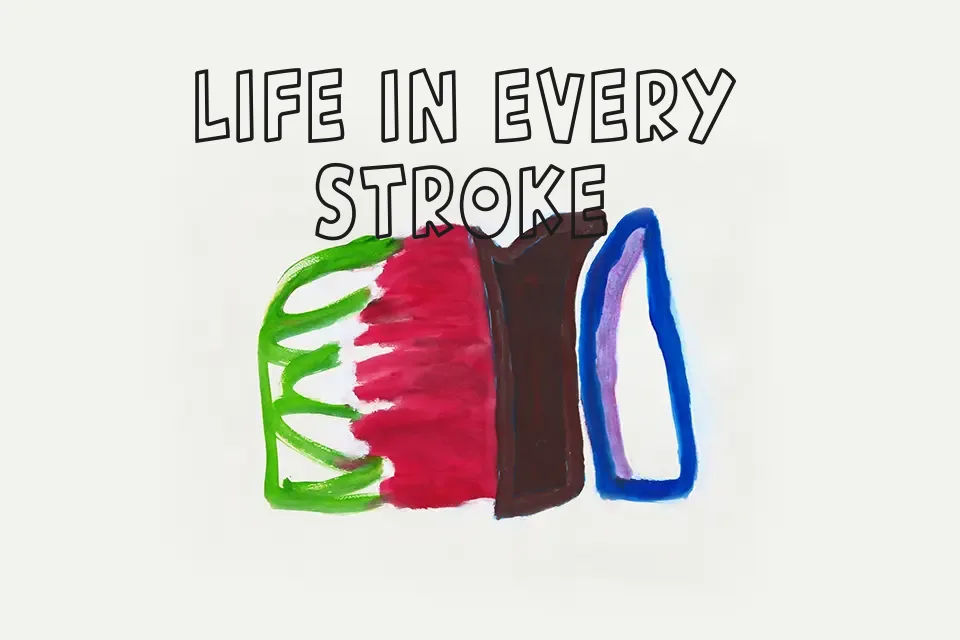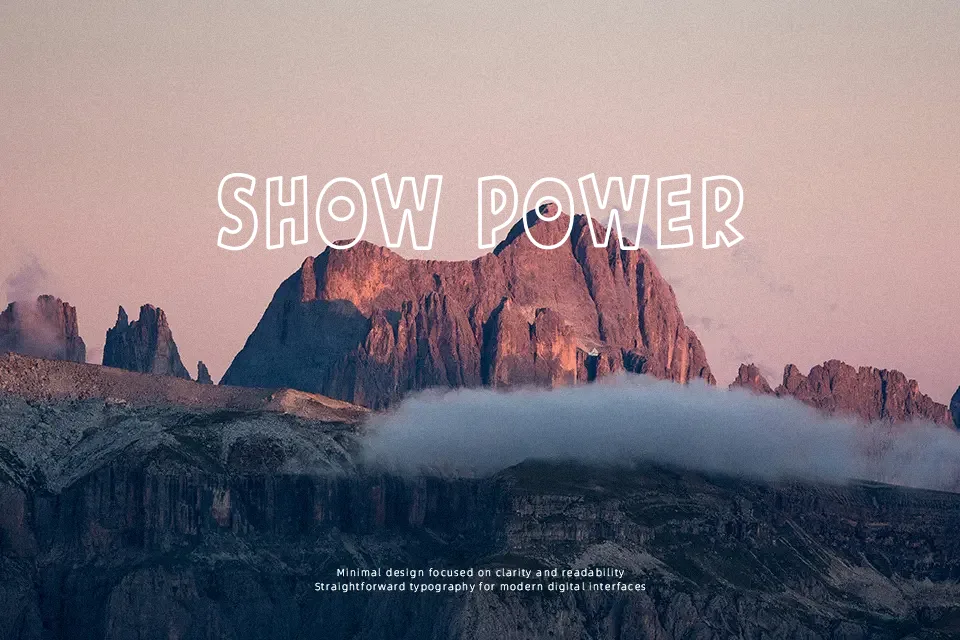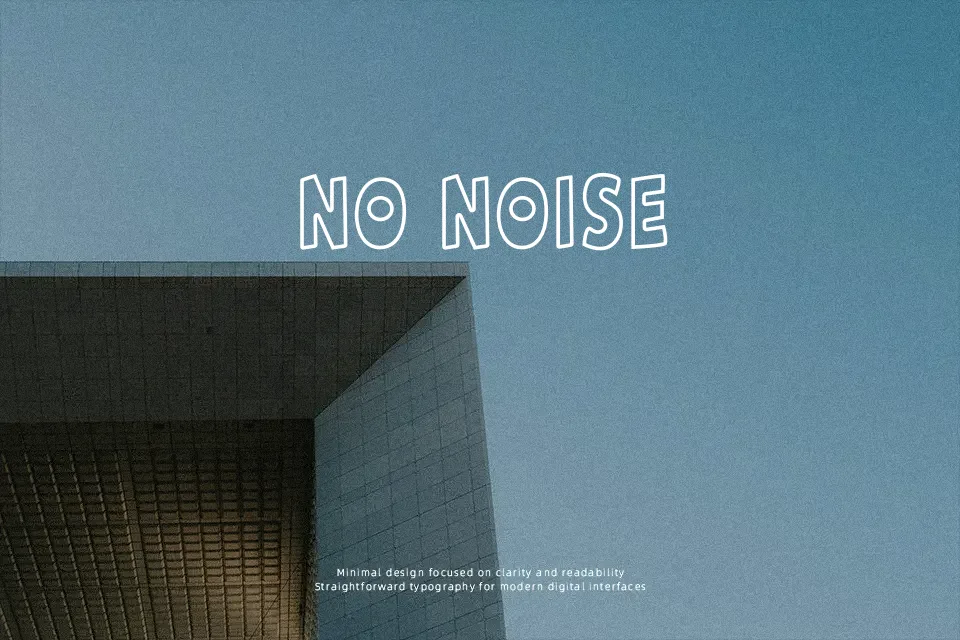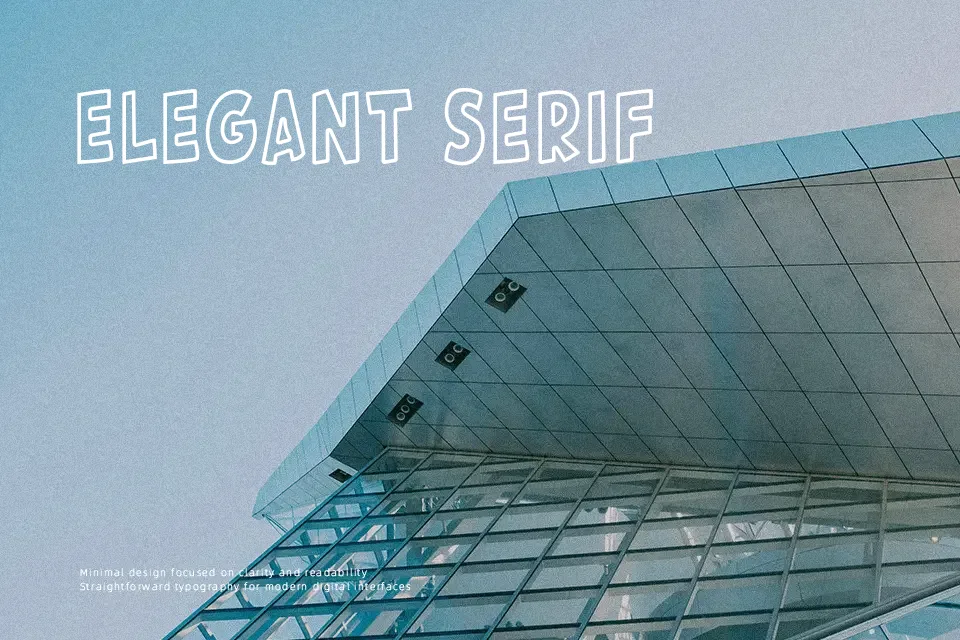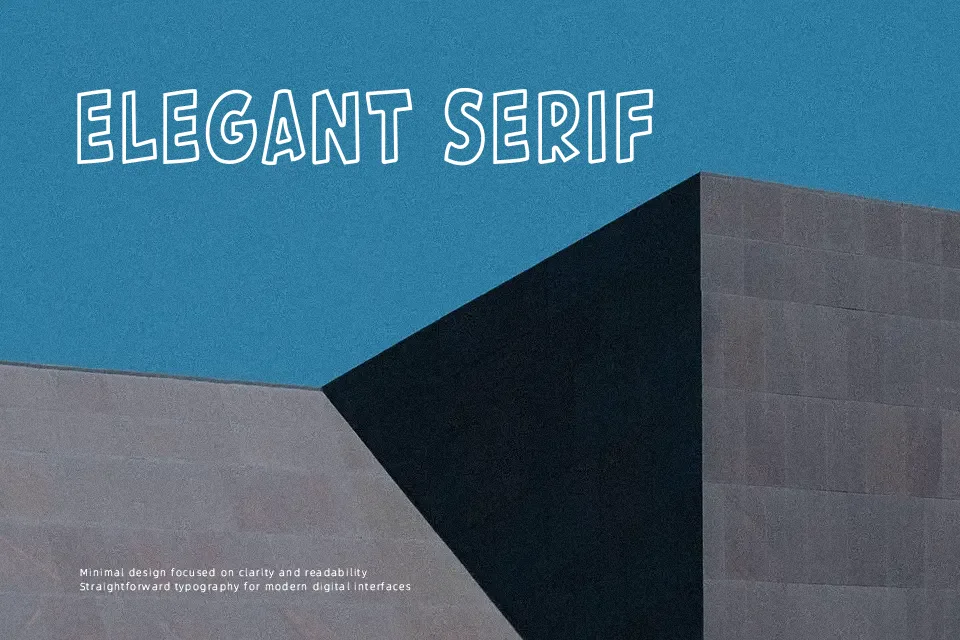
Breast Cancer Font
Breast Cancer is an outlined cartoon-style display face with bouncy, uneven contours, generous counters, and relaxed spacing that reads as light, informal, and approachable. The strokes feel hand-drawn rather than mechanical, so lettering looks more like marker or pen work than strict typography. Overall it leans decorative and casual, with a youthful energy that works well on awareness campaigns, event posters, merch, and social media tiles where you want warmth instead of clinical seriousness. It can handle short titles and logotypes, but long paragraphs or small UI text quickly feel noisy and tiring. I would reach for this font when a project needs supportive, empathetic messaging with a fun twist, and switch to something simpler for dense copy or highly formal branding.
breast cancer awareness posters and merch
friendly social media campaigns and stories
event titles, flyers, and charity headlines
playful branding for cause-related projects
body text or long reading passages
formal corporate or editorial layouts
tiny UI labels or data-heavy interfaces
projects needing a neutral, minimal voice
Perfect for branding, headline, and logo, with a creative and cartoon style.